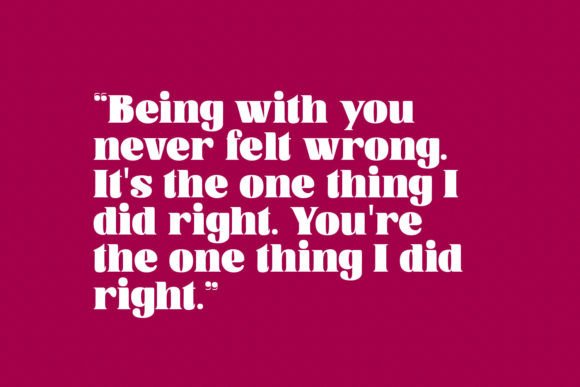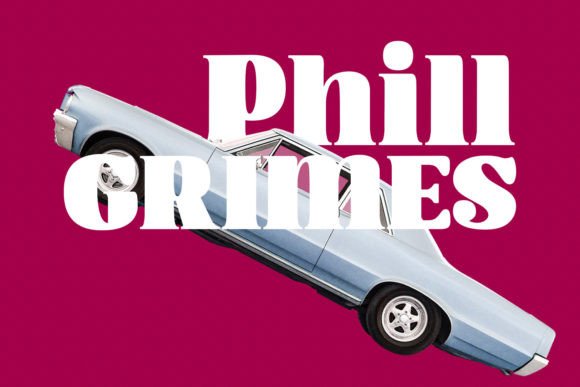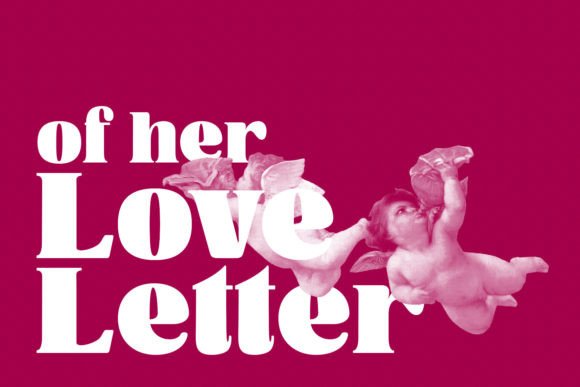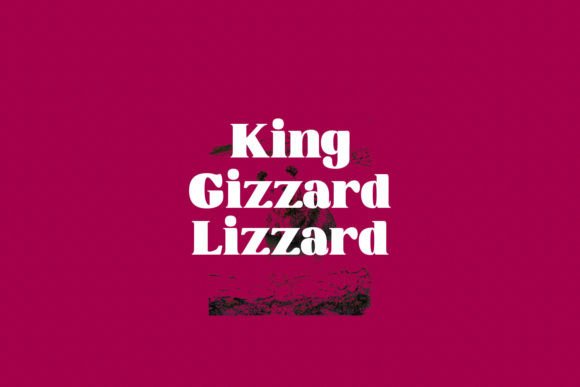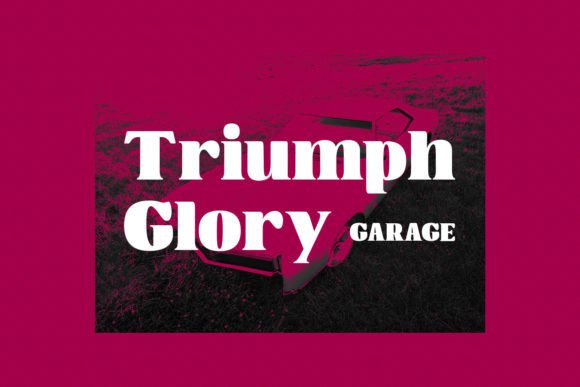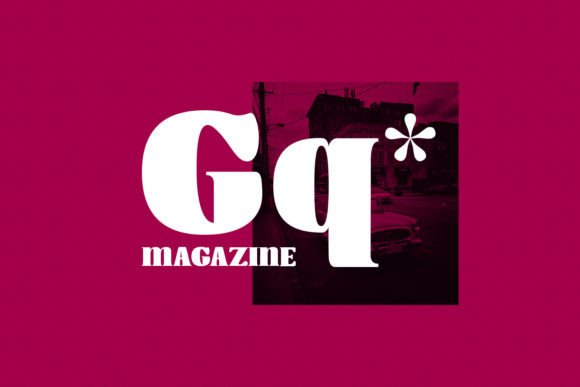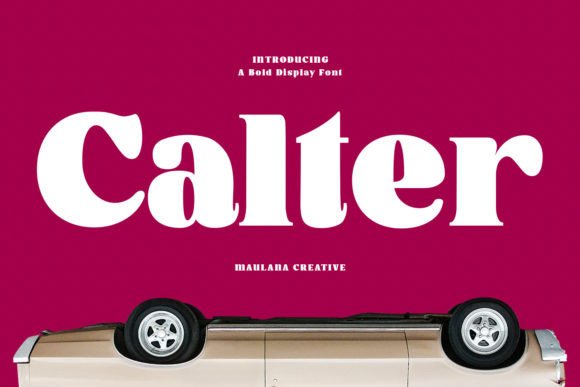
Introducing Calter Font: Elevate Your Designs with Modern Display Serif Elegance
In the world of typography, fonts play a crucial role in conveying messages, evoking emotions, and setting the tone for any creative project. For designers and crafters looking to make a statement, the right font can be a game-changer. This is where Calter Font comes into play – a modern display serif font designed to elevate your creations to new heights. Whether you’re working on a branding project, crafting a website, or designing marketing materials, Calter is poised to become an indispensable asset in your font library.
What Makes Calter Font Stand Out?
Calter Font is not just another addition to the vast sea of typefaces. Its unique blend of modernity and classic serif elements sets it apart, making it incredibly versatile. Here are a few key features that make Calter a standout choice:
- Modern Display Serif: Calter brings a fresh take on traditional serif fonts, with clean lines, elegant curves, and a contemporary feel that instantly captures attention.
- Versatility: No matter the topic or industry, Calter seamlessly adapts, ensuring your message is conveyed with style and sophistication.
- Elegance and Readability: The font strikes a perfect balance between elegance and readability, making it suitable for headlines, titles, and short paragraphs.
Applications of Calter Font
The versatility of Calter Font means it can be used across a wide range of projects. Here are some ideas to get you started:
- Branding and Logos: Create a lasting impression with a logo that stands out, thanks to Calter’s unique and memorable style.
- Web Design: Enhance your website’s visual appeal with headings and titles that pop, using Calter to draw visitors in.
- Marketing Materials: From brochures to flyers, and social media graphics to billboards, Calter ensures your message is delivered with impact.
- Packaging: Add a touch of sophistication to product packaging, making your brand stand out on store shelves.
Why Choose Calter Font?
With so many fonts available, why should Calter be your go-to choice? Here are a few compelling reasons:
- Uniqueness: Calter offers a distinctive look that can set your project apart from the competition.
- Quality: Designed with precision, Calter is a high-quality font that reflects professionalism.
- Easy to Use: Whether you’re a seasoned designer or a crafting novice, Calter is easy to integrate into your projects.
Tips for Using Calter Font Effectively
To get the most out of Calter Font, consider the following tips:
- Pair with Simplicity: Let Calter be the focal point by pairing it with simpler fonts for body text.
- Experiment with Sizes: Play with different sizes to maximize visual impact, especially in headlines and subheadings.
- Color Matters: Choose colors that complement the elegance of Calter, ensuring your design feels cohesive.
Calter Font is more than just a typeface – it’s a design statement. Its modern display serif style, combined with versatility and elegance, makes it an invaluable addition to any designer’s or crafter’s toolkit. Whether you’re aiming to create visually stunning branding, enhance your web design, or simply add a professional touch to your projects, Calter is up to the task. Embrace the power of Calter Font and watch your designs transform with a touch of modern sophistication.